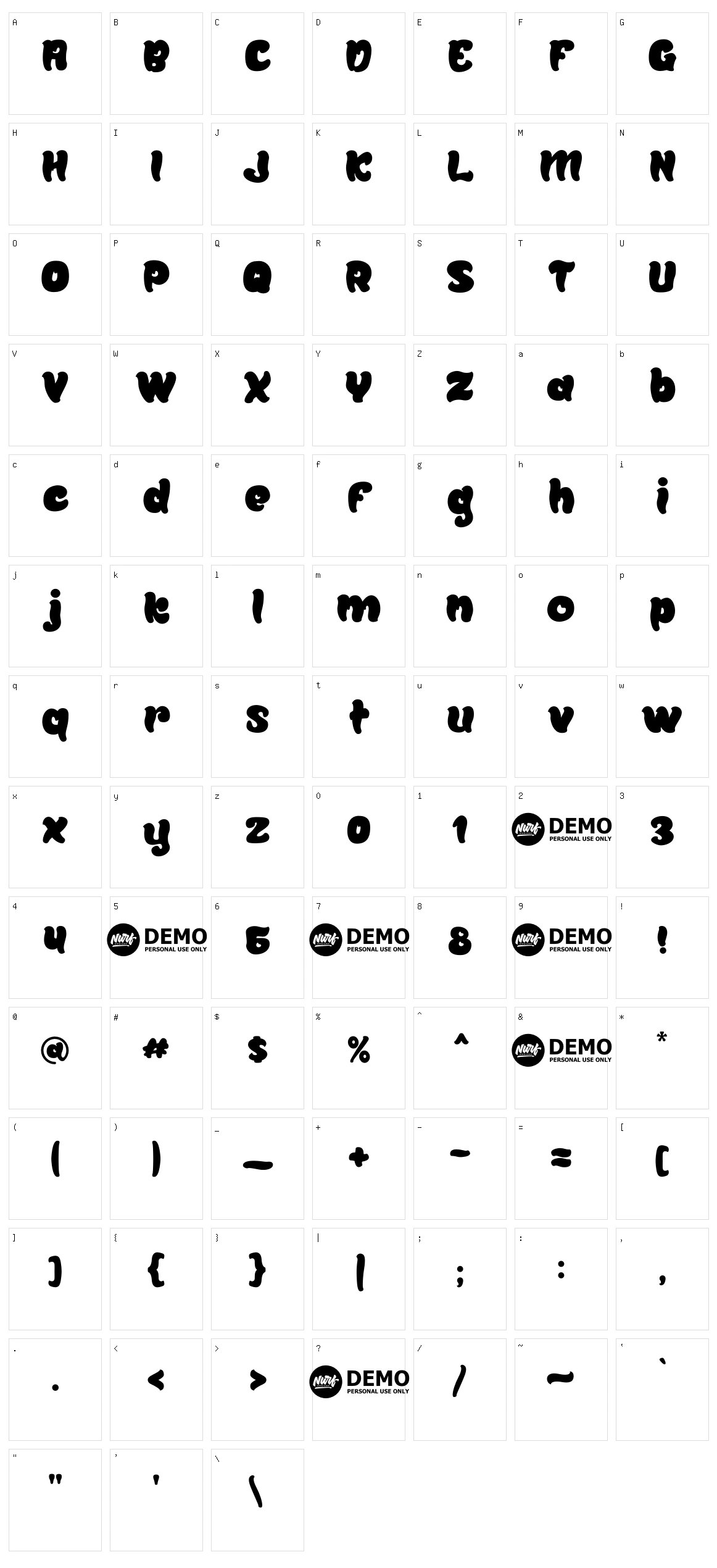
The free font Baby Born is carefully designed by Nurf Designs, showcasing a thoughtful balance of creativity and usability and falls under the Cartoon font style. When you download the ZIP file, it contains only 41.76 KB of font files, making it lightweight and quick to download. Please review the license details below to understand permitted usage and distribution rights. If license information is not available, we recommend using this font for personal projects only or contacting the author directly for commercial usage permissions.